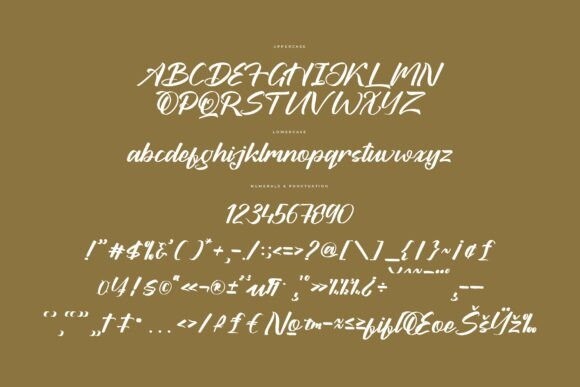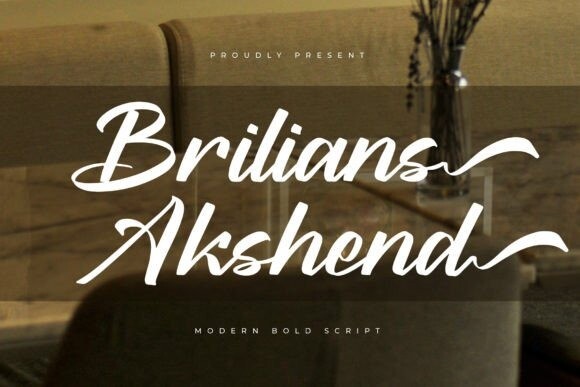
Brilians Akshend Font
Designer: Letterena Studios
Brilians Akshend Font is a stylish script font that embodies sophistication and grace. With its fluid, sweeping letterforms, this font exudes a timeless elegance and adds a touch of glamour to any project. Ideal for conveying luxury and refinement, Brilians Akshend elevates your designs with its captivating aesthetic.